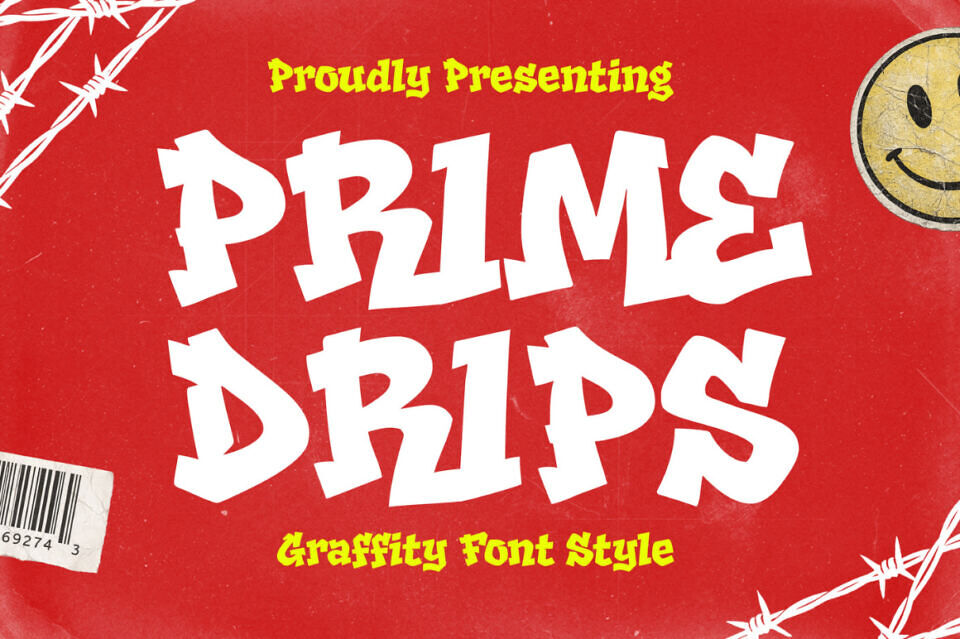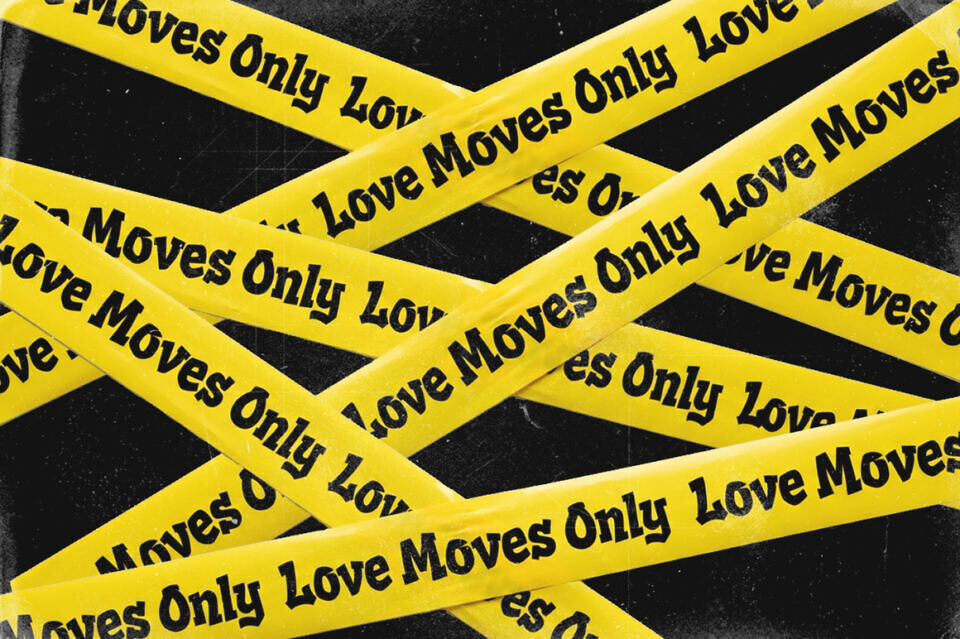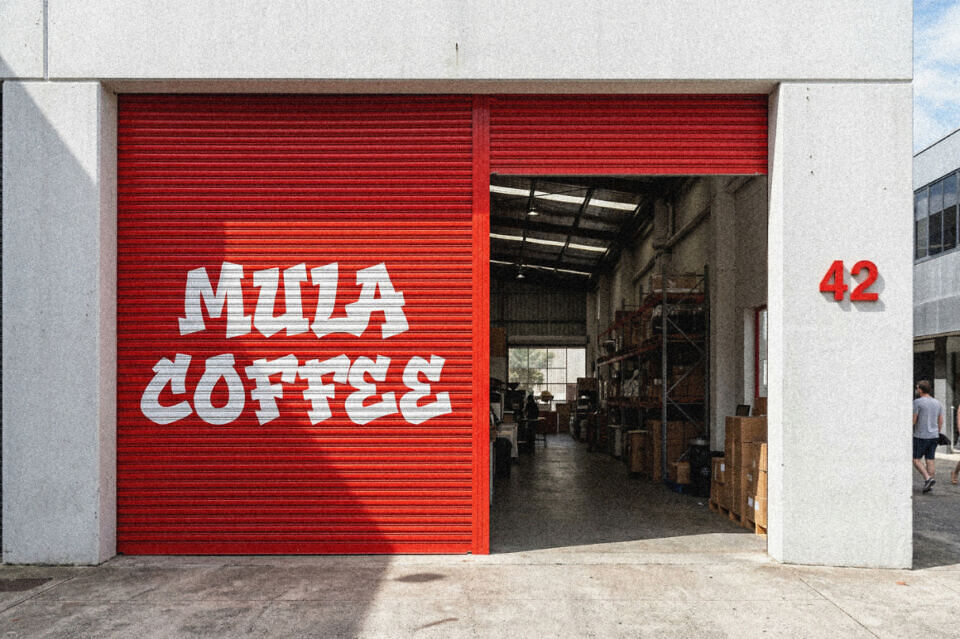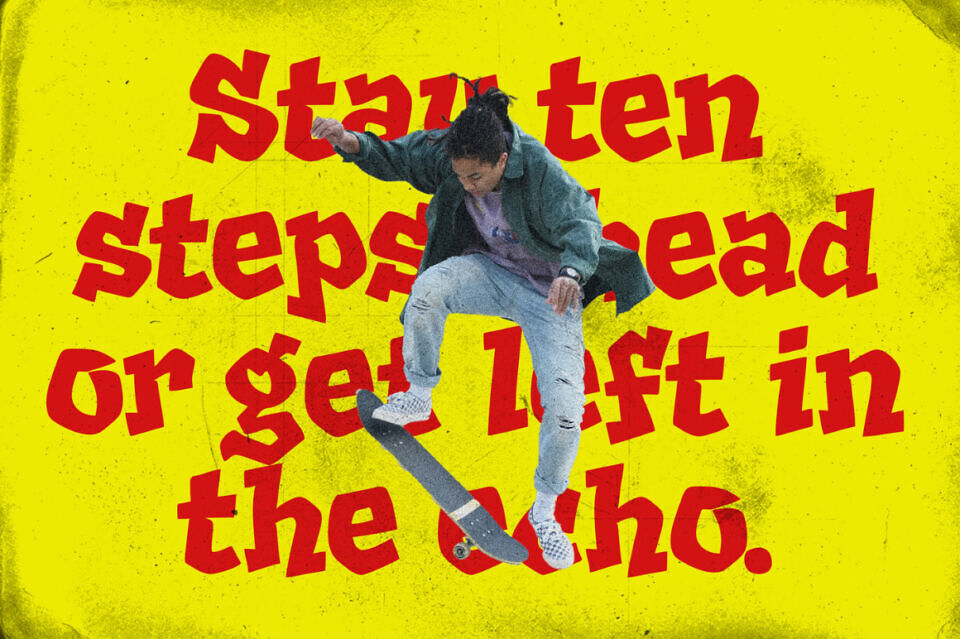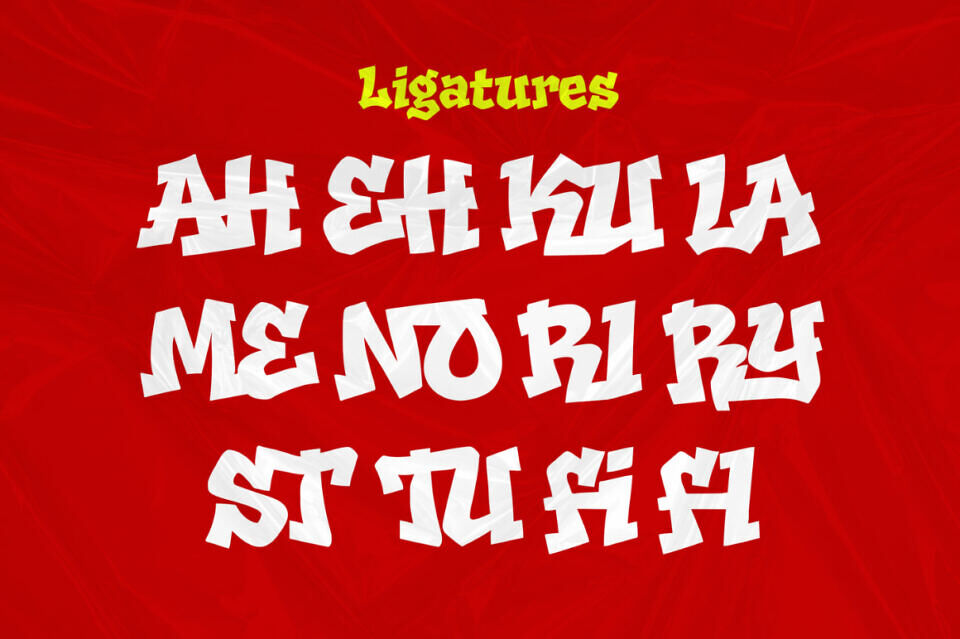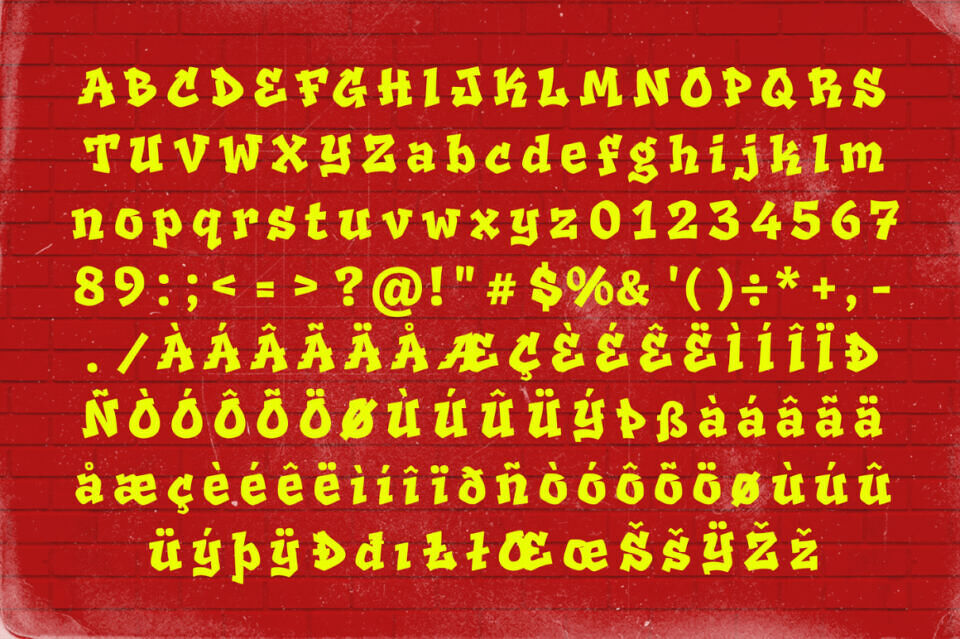
Prime Drips is a bold graffiti font that captures the raw energy of street art. Its edgy shapes and urban attitude make it perfect for posters, album covers, apparel, logos, and any project that needs a rebellious, eye-catching look. This cool font brings authentic street vibes and expressive character to your designs.